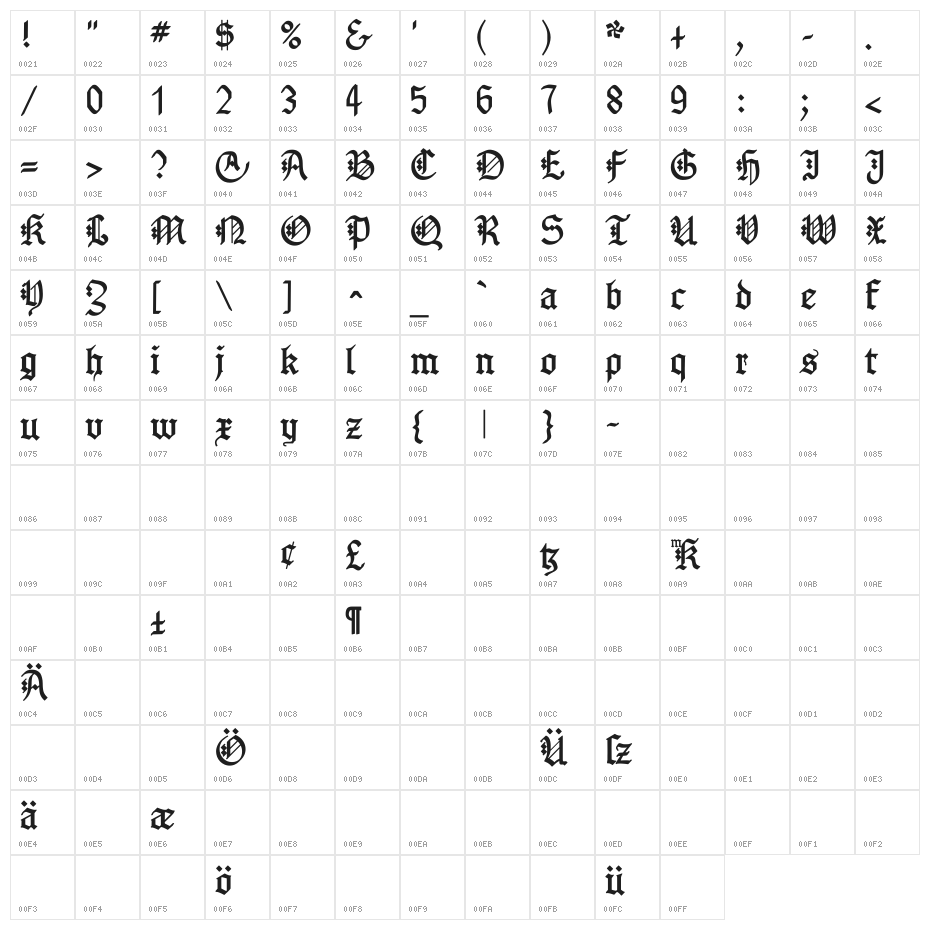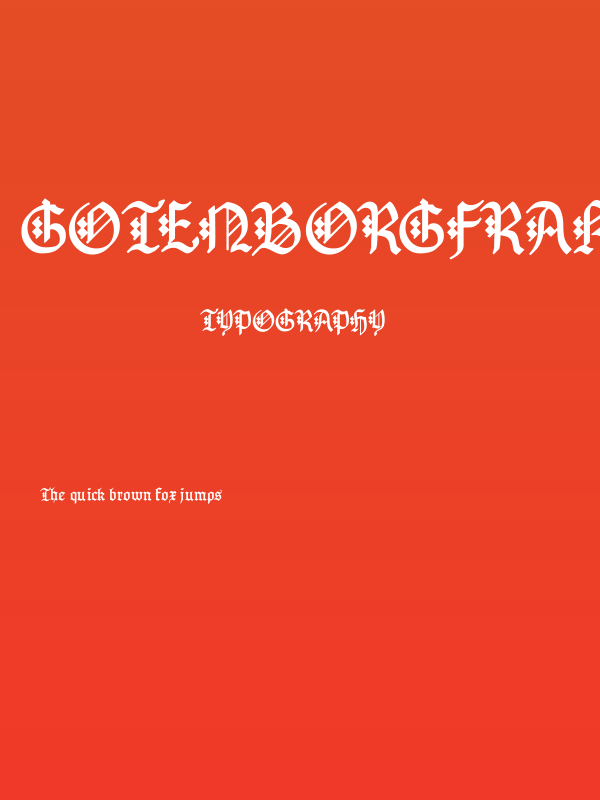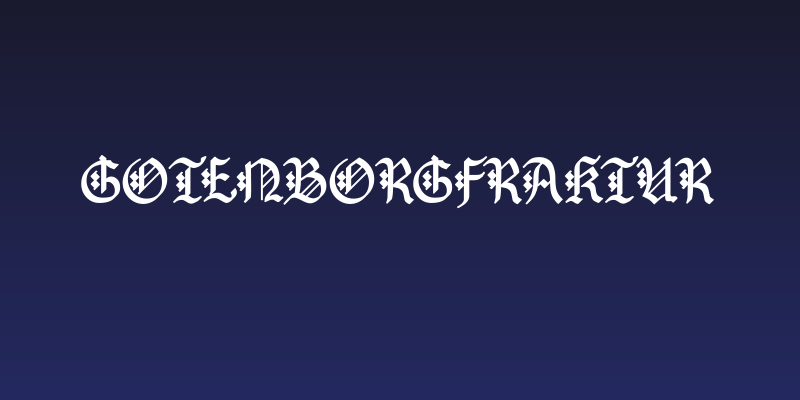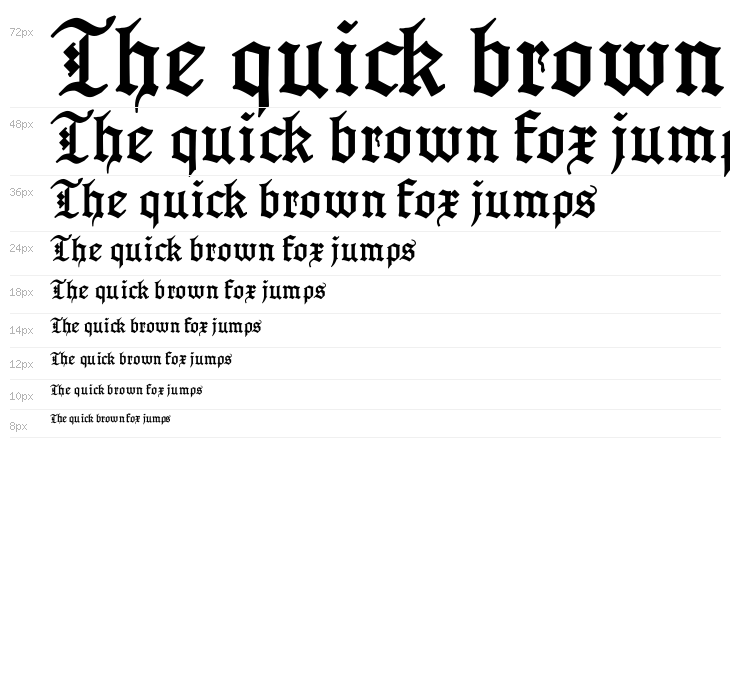
GotenborgFraktur Font
GotenborgFraktur Description
This font is a classic example of Blackletter style, characterized by its intricate and ornate letterforms. The uppercase letters feature sharp, angular lines with dramatic flourishes, while the lowercase letters maintain a consistent style with slightly less ornamentation. The numbers are bold and maintain the same angular aesthetic, making them highly legible. Special characters are designed with the same attention to detail, ensuring a cohesive look across all glyphs. This font exudes a historical and traditional feel, reminiscent of medieval manuscripts and Gothic architecture.
| Proposed Projects | Ideal for historical documents, certificates, book covers, and branding that requires a classic or medieval touch. |